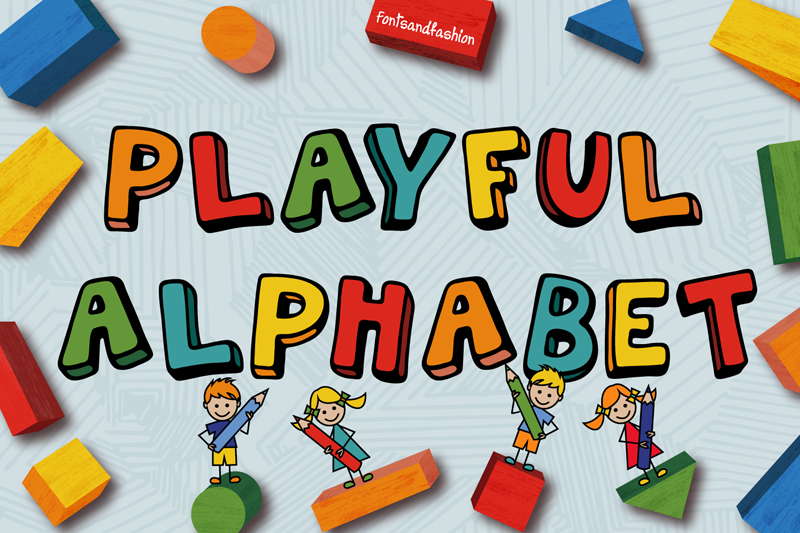
Playful Alphabet is a funny and bubbly display font with a great readability. Versatile in any context, whether it�s being used on busy backgrounds as comic or for witty children themed designs, especially when combined with bright colors. It is composed of 236 total glyphs, including basic Latin, Latin 1 Supplement, multilingual accents, numerals and punctuations. This is a DEMO version, if you would like to download the full version, follow this link: https://www.creativefabrica.com/product/playful-alphabet/ Follow us on: facebook: https://www.facebook.com/fontsandfashion Pinterest: https://www.pinterest.com/fontsandfashion Instagram: https://www.instagram.com/fontsandfashion |